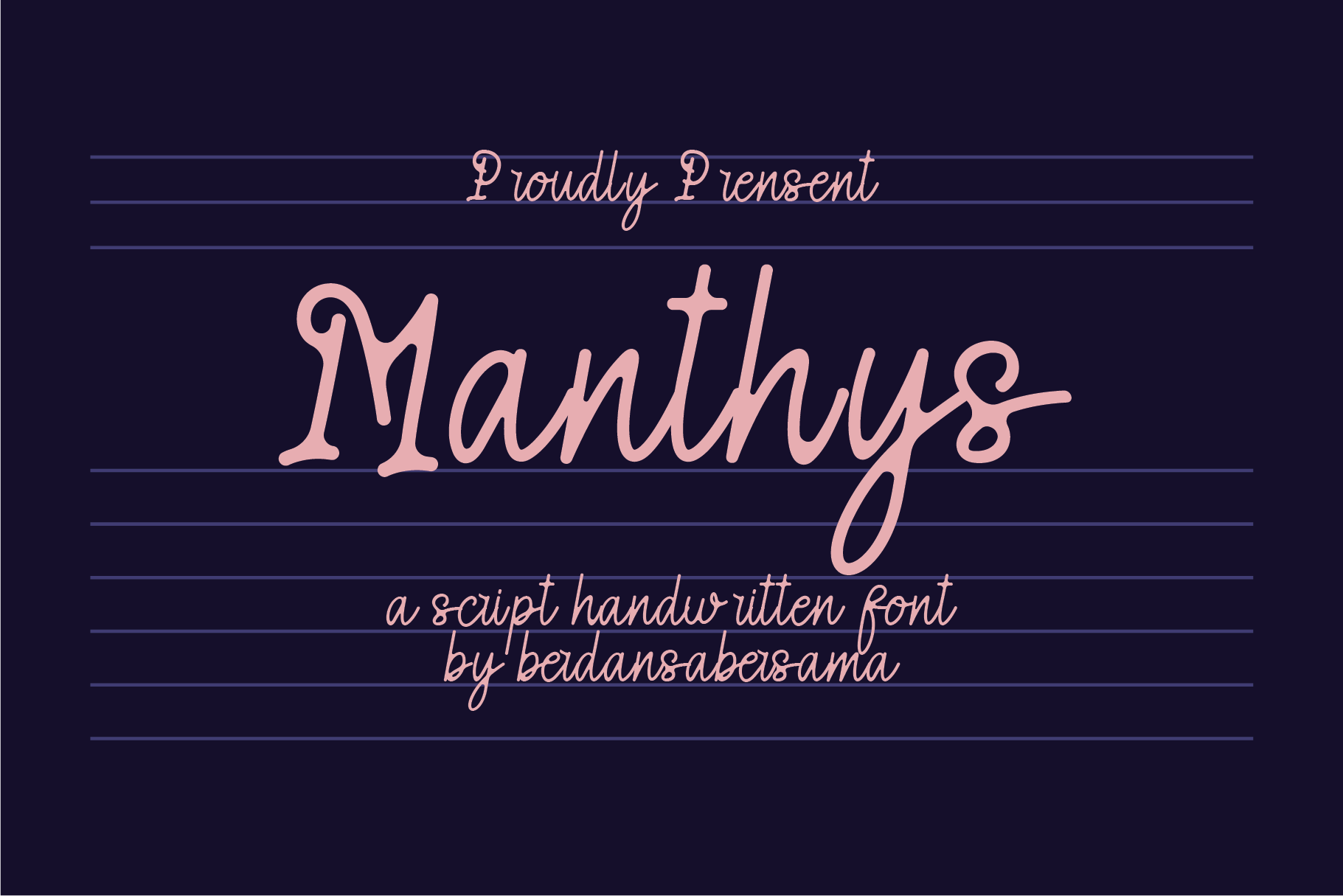
Manthys a Script Font
Manthys is an elegant script font that combines fluidity and grace, creating a stylish and sophisticated handwritten style. Its smooth, flowing strokes and delicate curves make it perfect for projects that require a personal, creative touch.